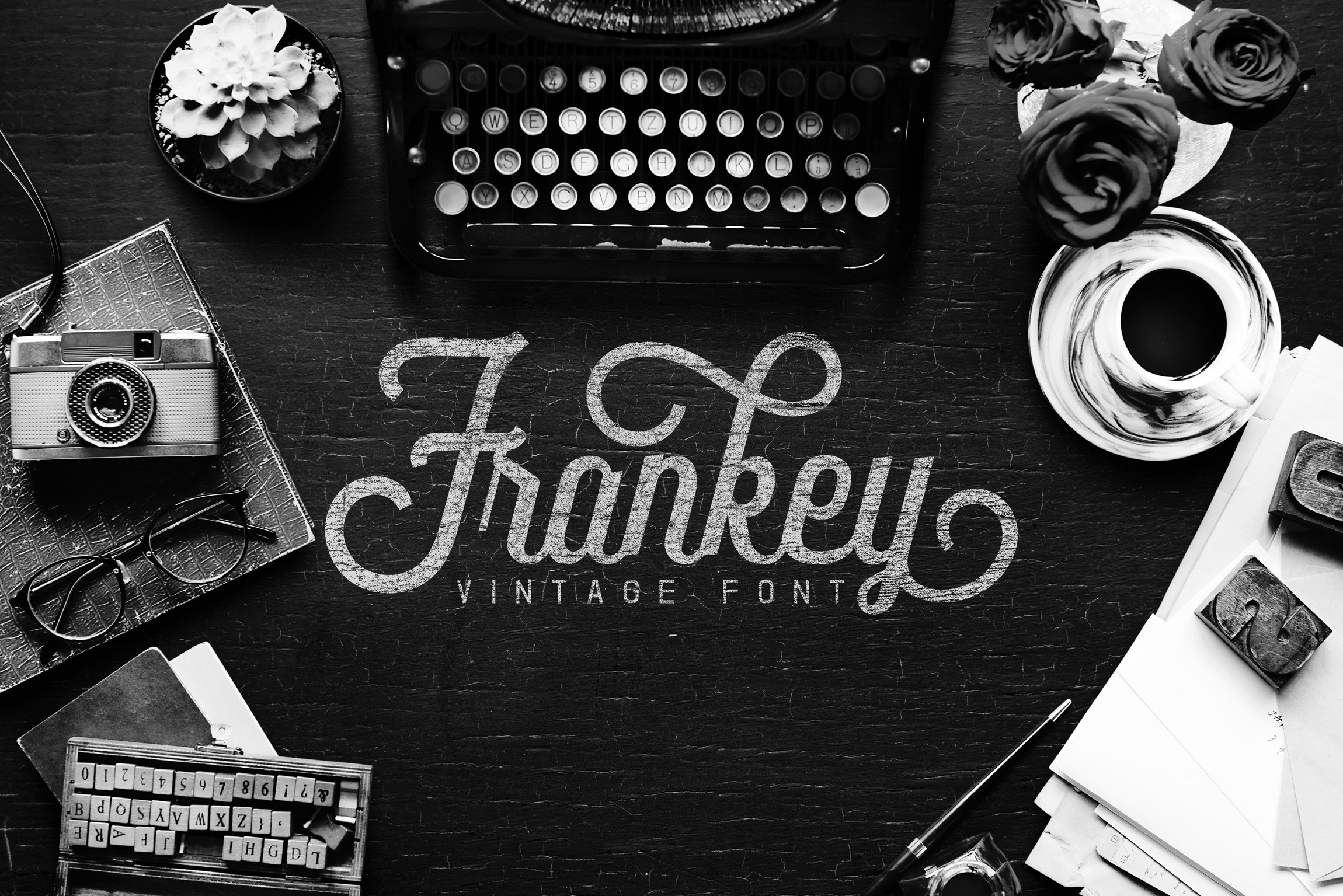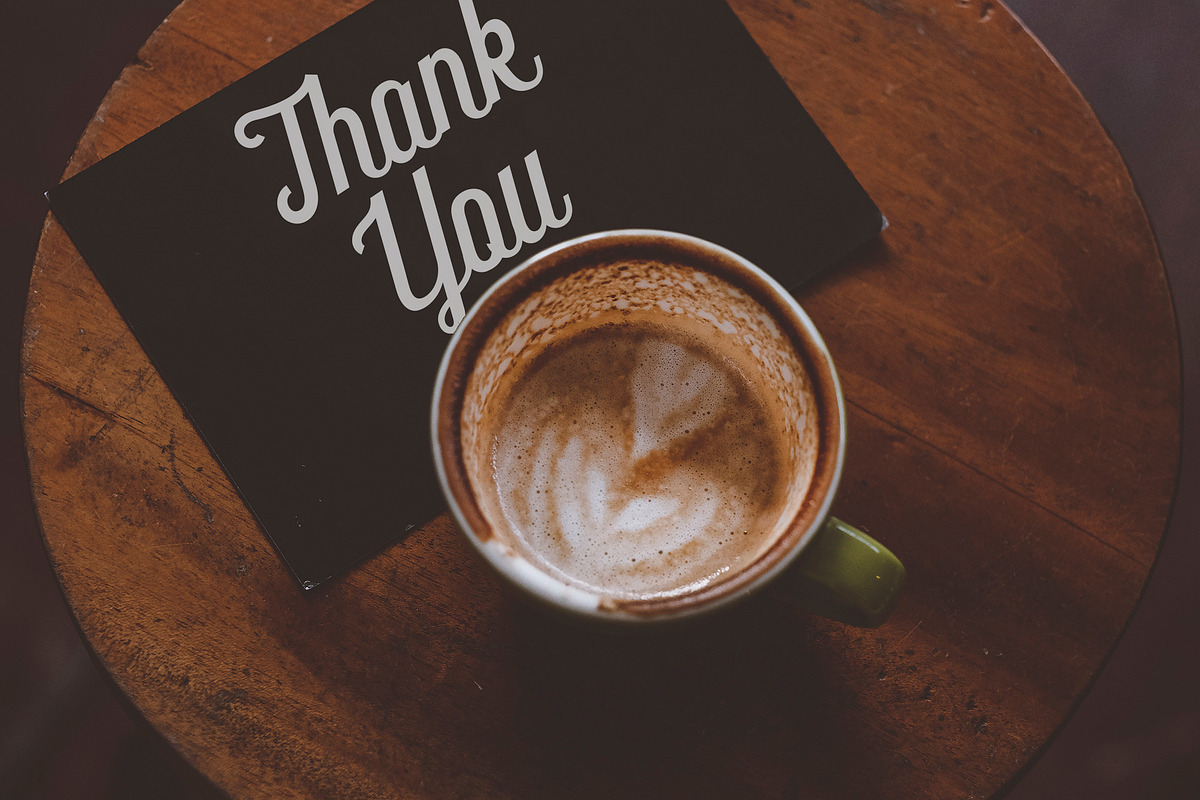
Frankey Vintage Font
Frankey Vintage Font is an elegant script font inspired by Retro Style. It perfectly represents vintage esthetics in a modern and minimalist way. The font includes special uppercase letters, alternate characters and beautiful ligatures. Frankey Vintage Font suitable for any design : Branding, Logotype, Bodytext, T-shirts, Mug design, Wedding Design and any design what you want.
- Character set A-Z with Alternates letters
- Character set a-z with 6 Alternates letters
- Ligature and Discretionary Ligature
- Contextual Alternates and Swash